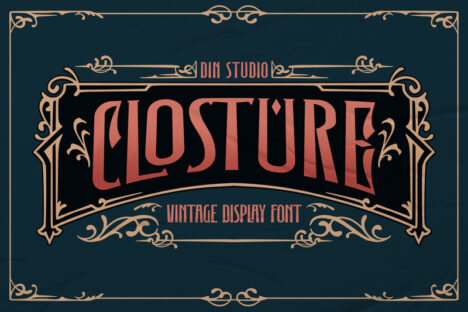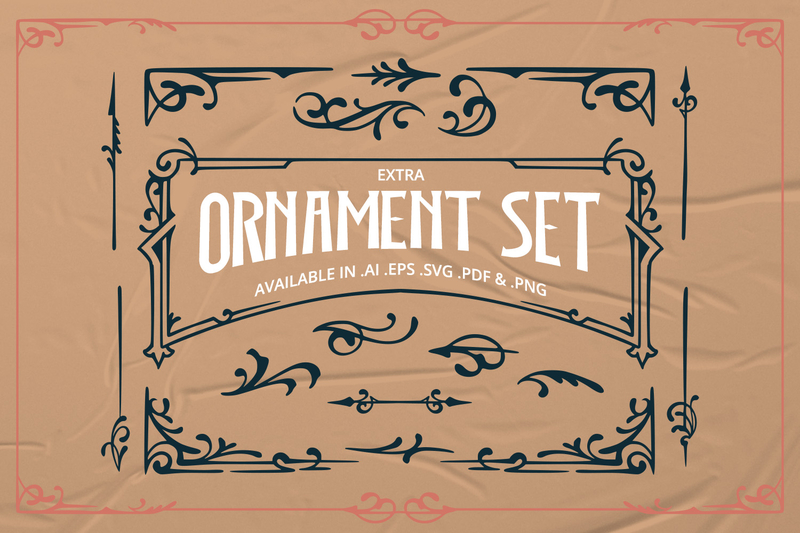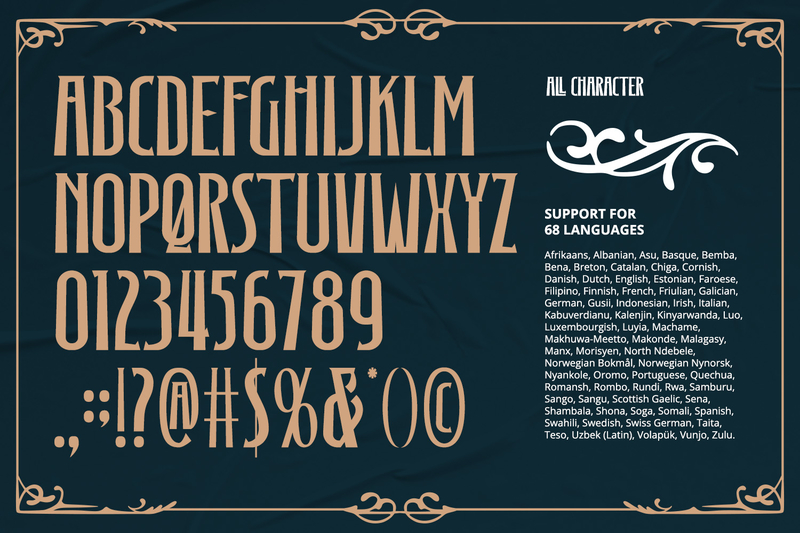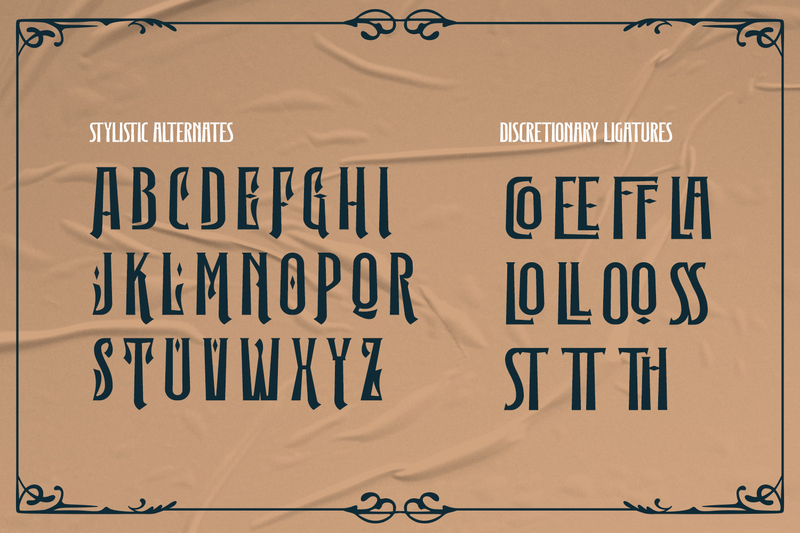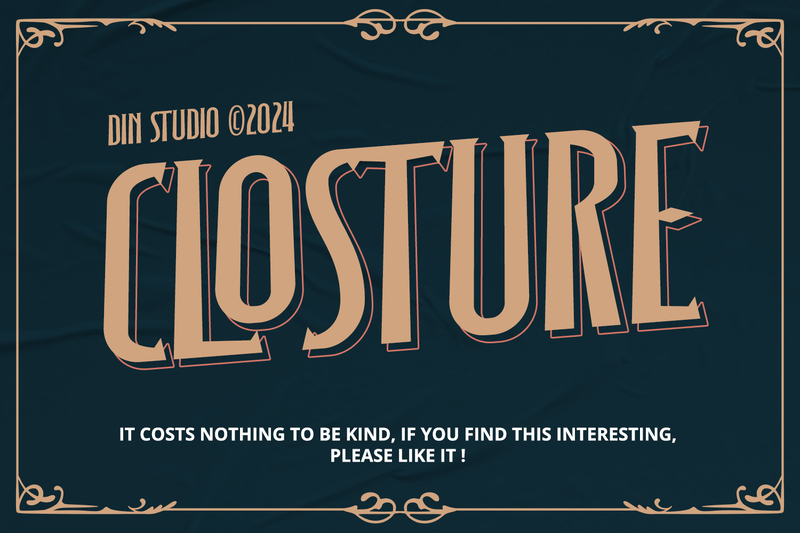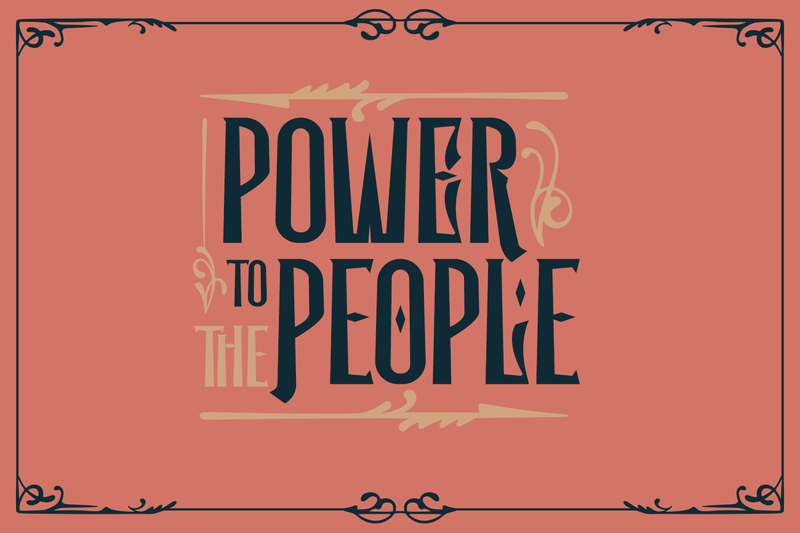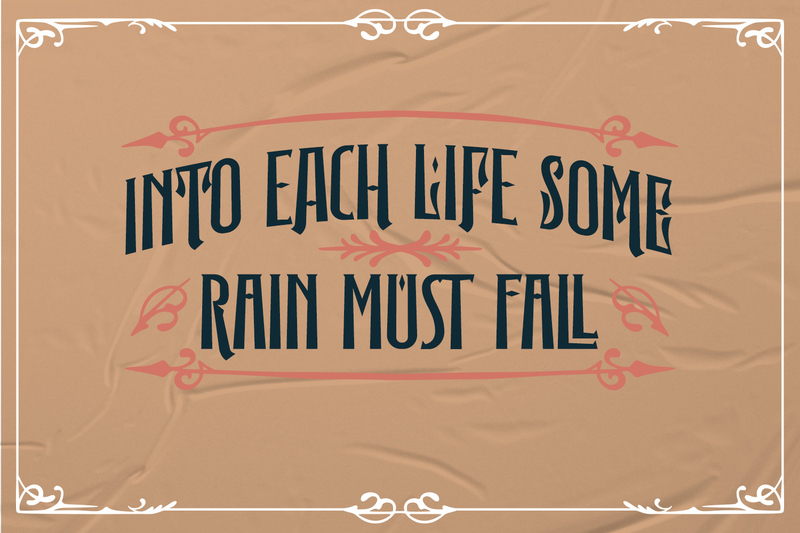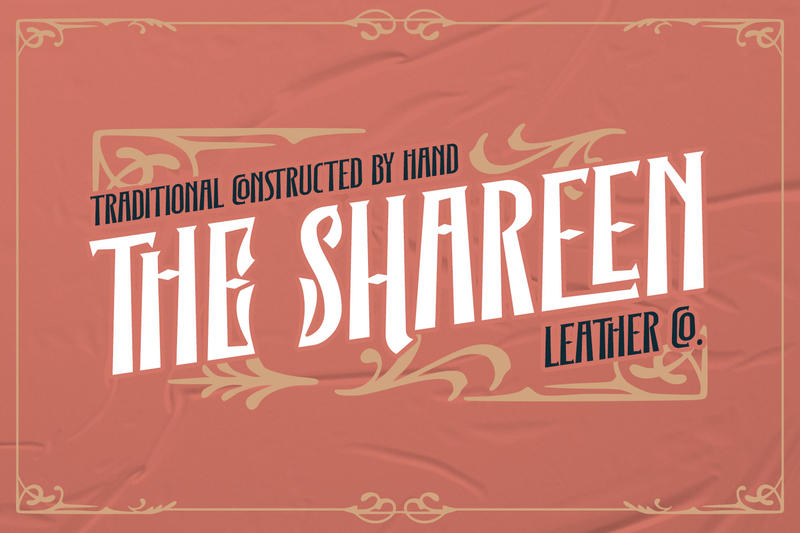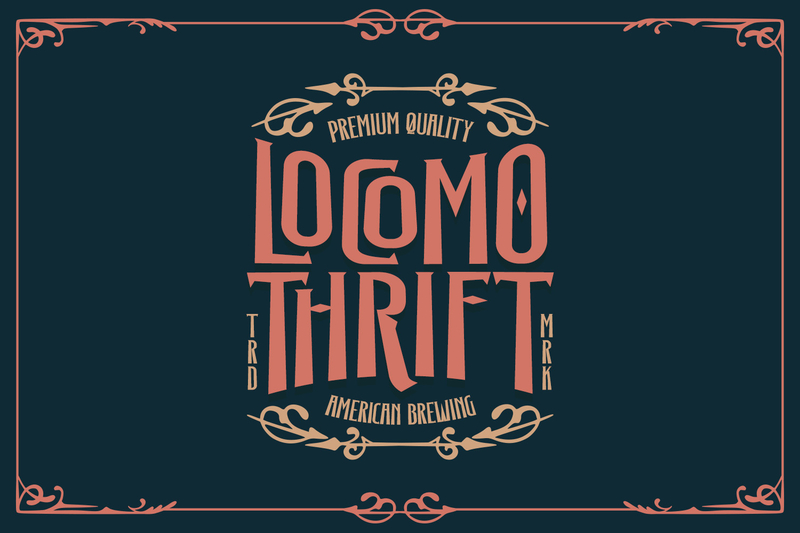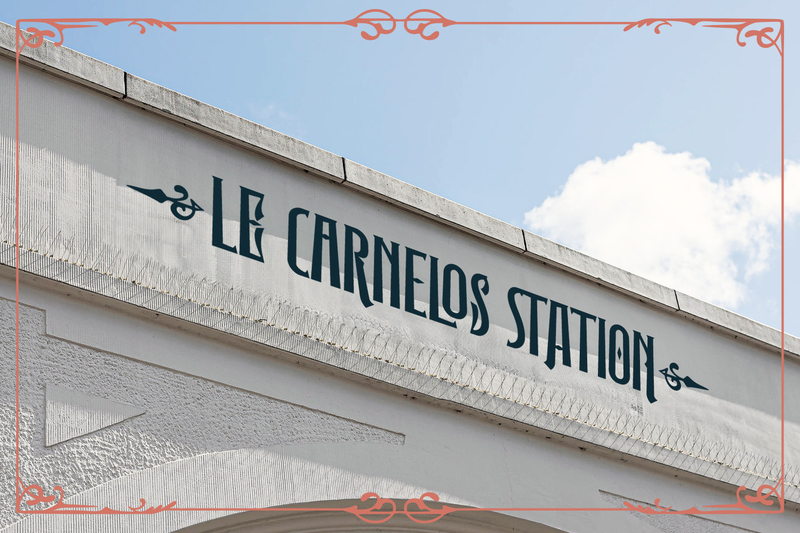
Introducing Closture-a vintage-inspired all-caps font that combines boldness with timeless elegance. Designed with a fairly bold weight, Closture stands out with its strong presence while maintaining consistent proportions for a balanced and harmonious look. This font channels a classic aesthetic that adds a touch of nostalgia to any design. As an extra, this font gives ornaments. In addition, enjoy the features here.
- Alternates
- Multilingual Supports
Closture fits in logos, posters, flyers, branding materials, print media, editorial layouts, and many more designs. Find out more ways to use this font by taking a look at the font preview.